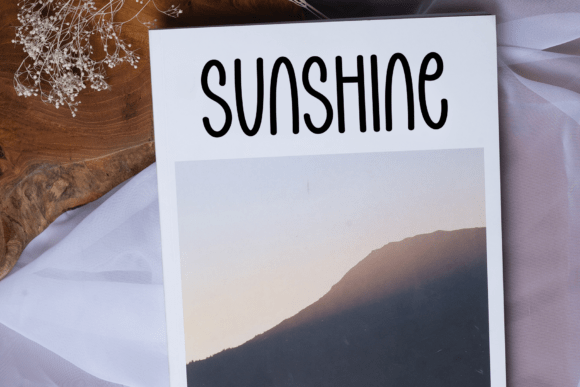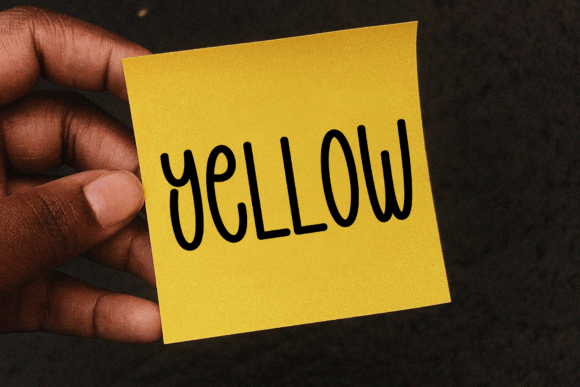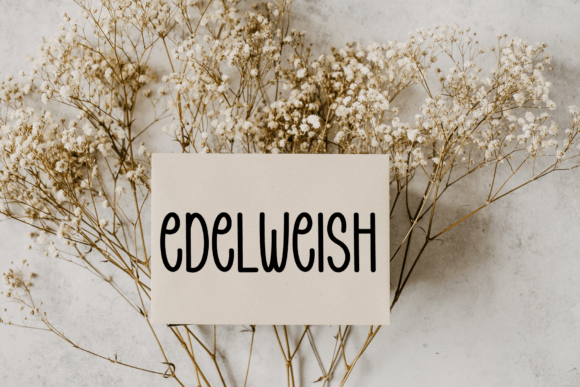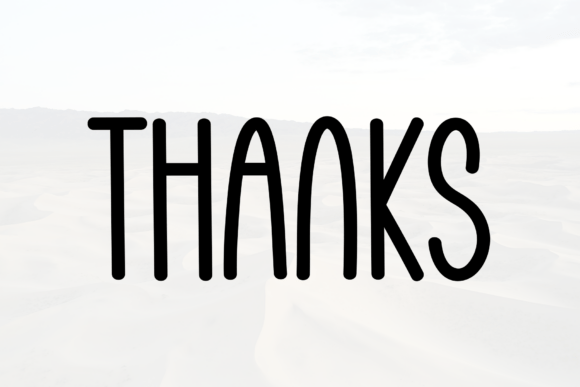
Find Your Perfect Handwritten Touch
There’s nothing quite like the feeling of creating something from scratch – the spark of an idea, the flow of imagination, and the satisfaction of bringing it all together. As designers, we’re constantly seeking that perfect combination of style and substance to make our projects truly stand out. And that’s exactly where the Anymore Font comes in – a sweet and beautiful handwritten font that adds a cozy accent to any design project.
Whether you’re crafting a wedding invitation, a social media post, or a marketing brochure, the Anymore Font is the perfect addition to your design arsenal. Its charming characters dance along the baseline, creating a sense of movement and energy that’s hard to resist. As designers, we know that the right font can make all the difference in capturing our audience’s attention and conveying our message. With the Anymore Font, you can trust that your designs will be both visually appealing and memorable.
Anymore Font Key Features
- Font Family: Anymore is a modern sans-serif font family designed for digital use, available in several weights and styles.
- Character Count: The Anymore Font family includes over 400 characters, including Latin, Cyrillic, and Greek alphabets, as well as punctuation and symbols.
- Size: The font is available in 8 different weights, ranging from Light to Black, allowing for a wide range of typographic expressions.
- Unique Characteristics: Anymore Font features a unique blend of geometric and organic shapes, giving it a distinctive and modern look that works well in digital and print applications.
Designer Review: Anymore Font
Anymore Font is an intriguing font that offers a mix of modern and classic elements. Here are some of the things that work well: ✨
- Its clean and elegant design makes it suitable for various applications, from body text to headings.
- The font’s versatility in both digital and print formats is a major plus.
- Anymore Font’s wide range of weights and styles allows for great flexibility in customizing the look and feel of a project.
- Its compatibility with most operating systems and devices is a significant advantage.
- The font may not be suitable for projects that require a more bold or dramatic look, as it tends to be on the more subtle side.
- Some users may find the font’s curves and lines to be slightly too smooth, which could make it less readable at small sizes.
- The font’s OpenType features are not as extensive as some other fonts in its class.
Overall, Anymore Font is a solid choice for designers looking for a clean and elegant font. While it may not excel in every area, its versatility and compatibility make it a great addition to any designer’s toolkit.
Anymore Font is ideal for creating modern and elegant designs. Some common use cases include:
– Creating a wedding invitation or event flyer.
– Designing a logo or branding materials.
– Adding a touch of sophistication to a resume or business card.